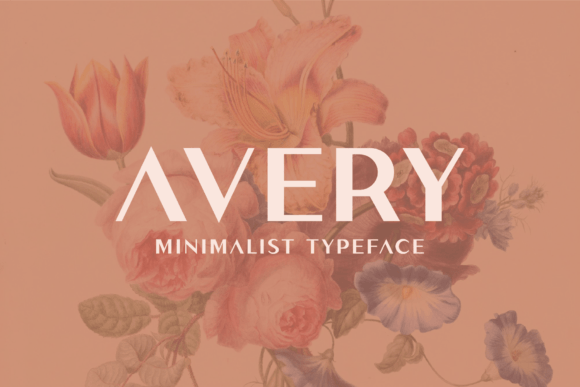
Discover the Elegance of Avery Font: A Modern Sans Serif for Creative Projects
I’ll never forget the design project that led me to discover the Avery Font. I was working on a luxury brand’s visual identity, and my client requested a font that exuded elegance and sophistication. After hours of scouring font libraries, I stumbled upon Avery – a minimal yet modern sans serif font that instantly captured the essence of the brand. In this article, I’ll share my experience with Avery, its features, and how to make the most of it in your creative projects.
A Personal Review of Avery Font
As a designer, I appreciate fonts that offer a balance of aesthetics and functionality. Here’s what I love about Avery:
- ✨ Clean lines and minimal design: Avery’s sleek appearance makes it perfect for titles, headers, and logo designs.
- ✅ Luxury feel: The font’s elegant appearance adds a touch of sophistication to any design.
- 🌈 Versatility: Avery works well for social media posts, quotes, banners, and more.
While Avery is an excellent font, it’s not without its quirks:
- 🤔 Limited character variations: Avery has a limited set of character variations, which might not be ideal for projects requiring extensive typography.
- ⚠️ Not suitable for body text: Due to its elegant and minimalist design, Avery might not be the best choice for lengthy body text.
- Experiment with OpenType features like ligatures and stylistic alternates to add a touch of elegance to your design.
- Explore glyphs and stylistic alternates to customize your text and add visual interest.
The Story Behind Avery Font
Avery was designed with the goal of creating a modern, luxurious sans serif font. The designer aimed to craft a font that would be both elegant and versatile, suitable for a wide range of creative projects. By combining clean lines with a touch of sophistication, Avery has become a popular choice among designers and crafters.
Q: What is the style of Avery Font?
A: Avery Font is a modern sans serif font with a minimal yet elegant appearance.
Q: Is Avery Font suitable for body text?
A: No, Avery Font is best used for titles, headers, and short text passages due to its elegant and minimalist design.
Q: Does Avery Font come with OpenType features?
A: Yes, Avery Font features OpenType features like ligatures and stylistic alternates, which can be used to add visual interest to your design.